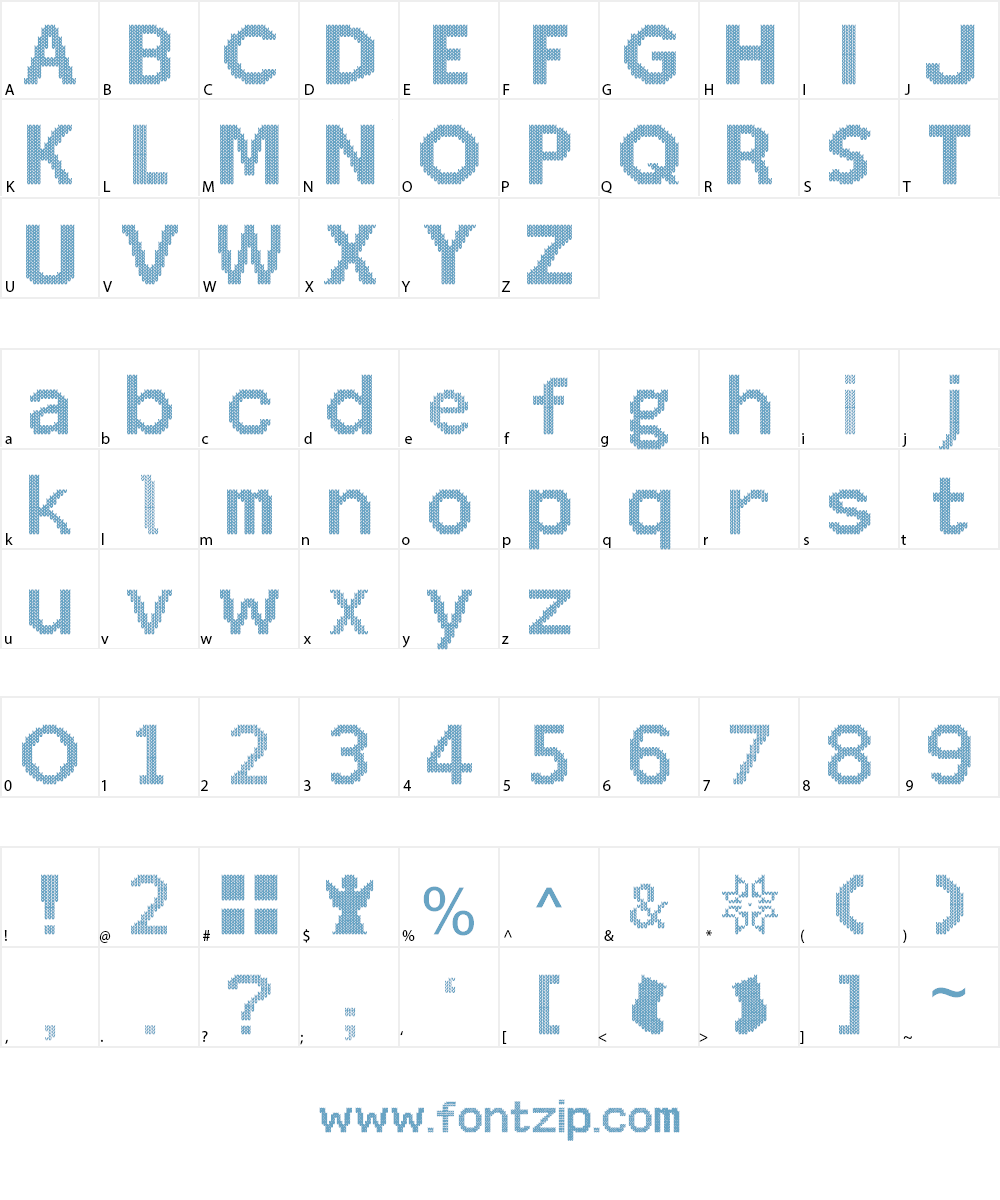
This font was created for my personal projects called Xmas Knit Font however I have decided to release this as donationware on behalf of Charity Fonts to help raise money for Save the Children Christmas Jumper Day 2014. Please make things better wear a digital sweater typeface and donate @ http://bit.ly/xmasjumperdaydonate
NOTE: the OTF version with postscript curves is best viewed at 28pt or above this is due to it's unique 'V' knit pattern and the limitations of hinting. However we have also now included the TTF version that will render more successfully at sizes lower that 36pt.